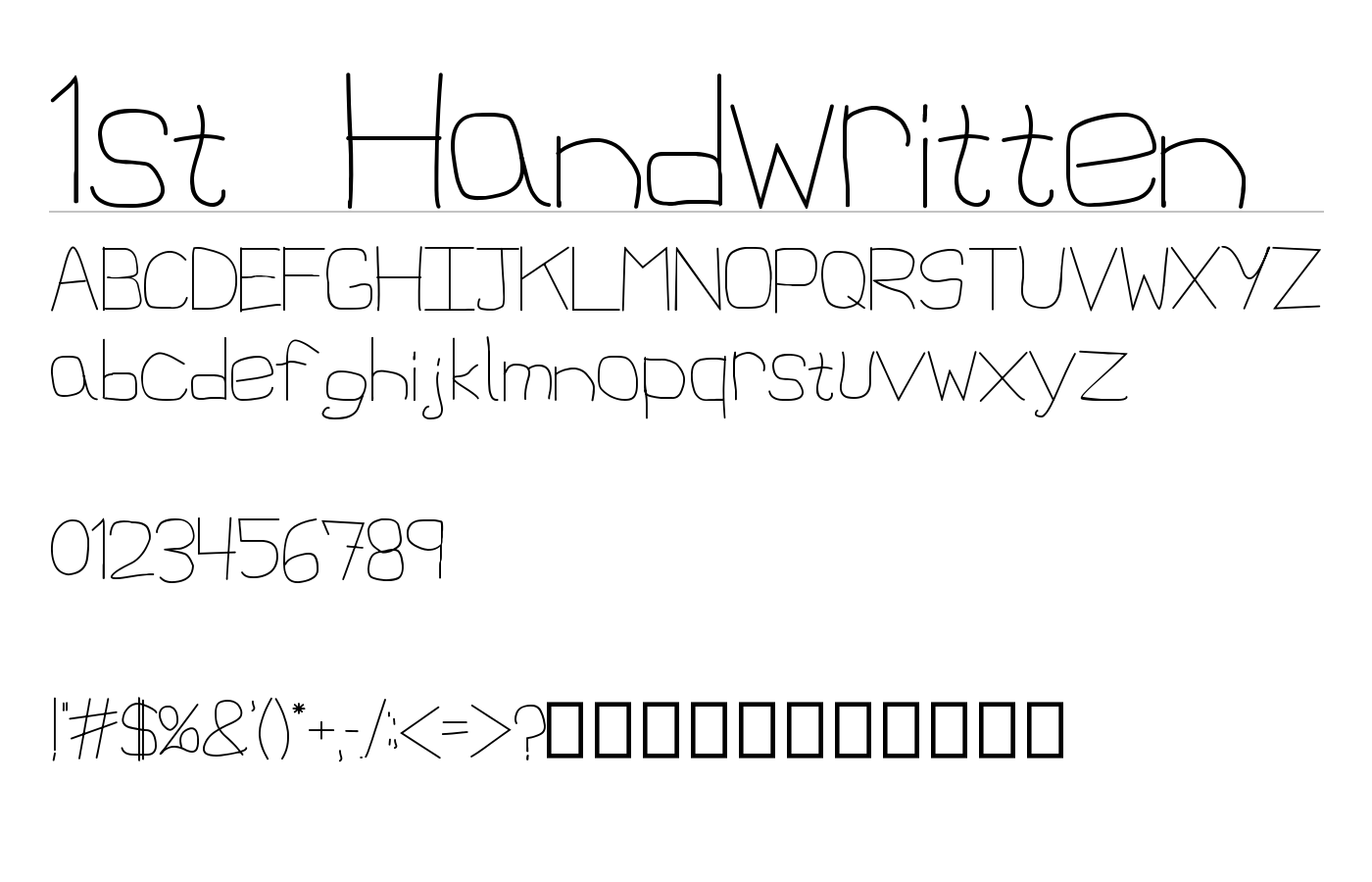
1st Handwritten Font is a slender, playful handwritten typeface that mimics natural pen strokes with its light weight and casual, slightly uneven lines. Its tall x-height, simple character shapes, and clean curves give it an approachable, friendly feel, making it ideal for informal designs, creative projects, and branding that seeks a personal touch. This font works well for children's materials, blogs, and casual invitations where a warm, handcrafted look is desired.
1st Handwritten Font
About 1st Handwritten Font
| Font family | 1st Handwritten Font |
| Designer | RAB1DRABB1T |